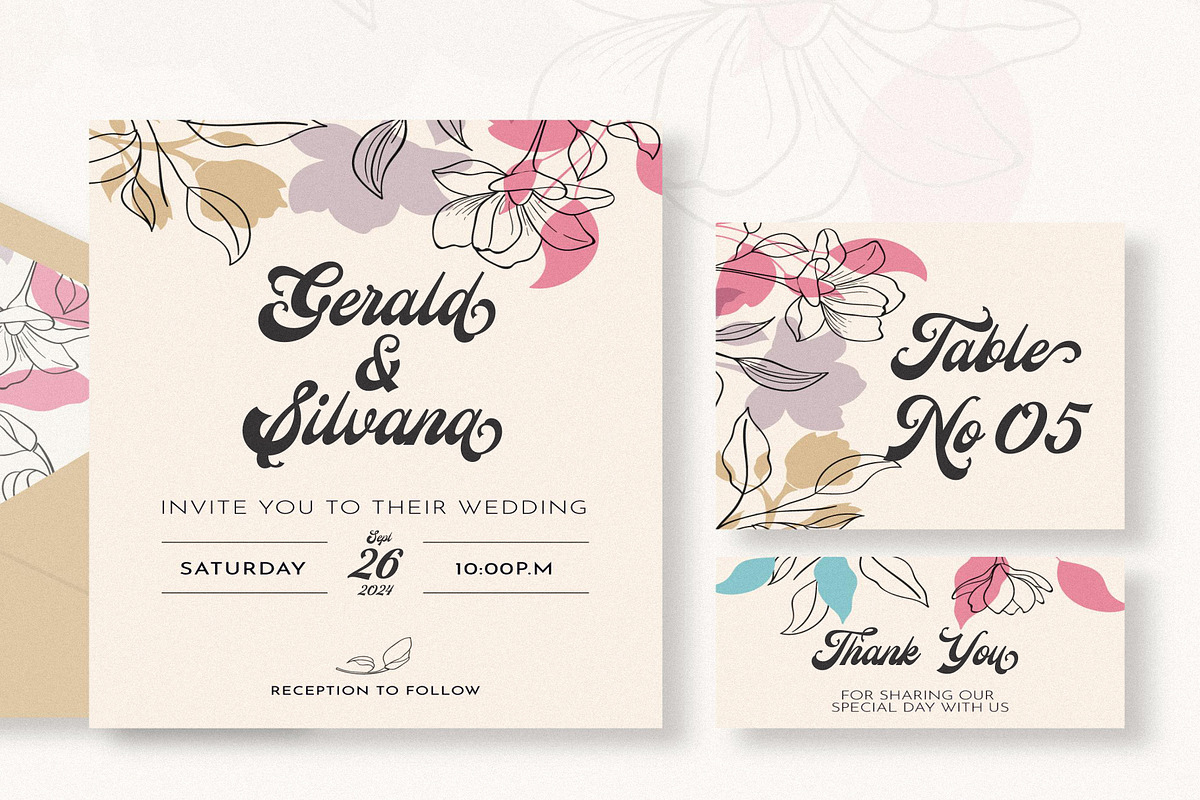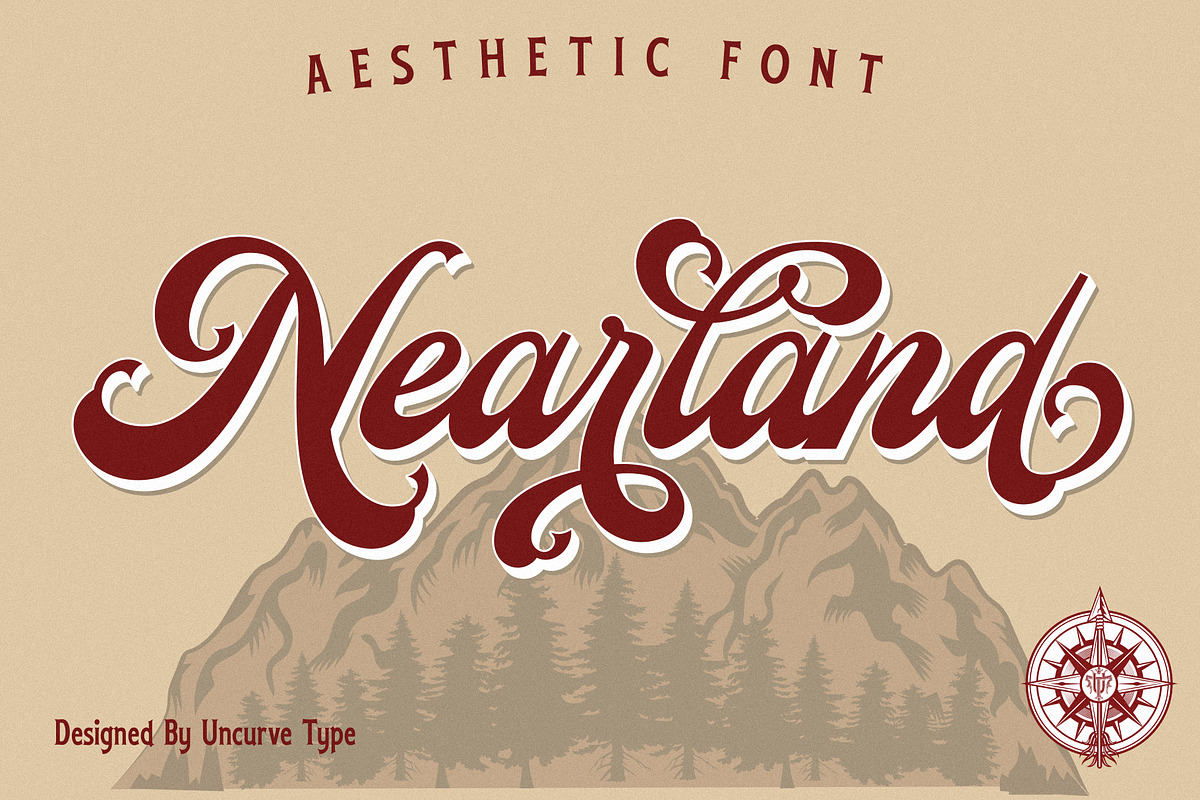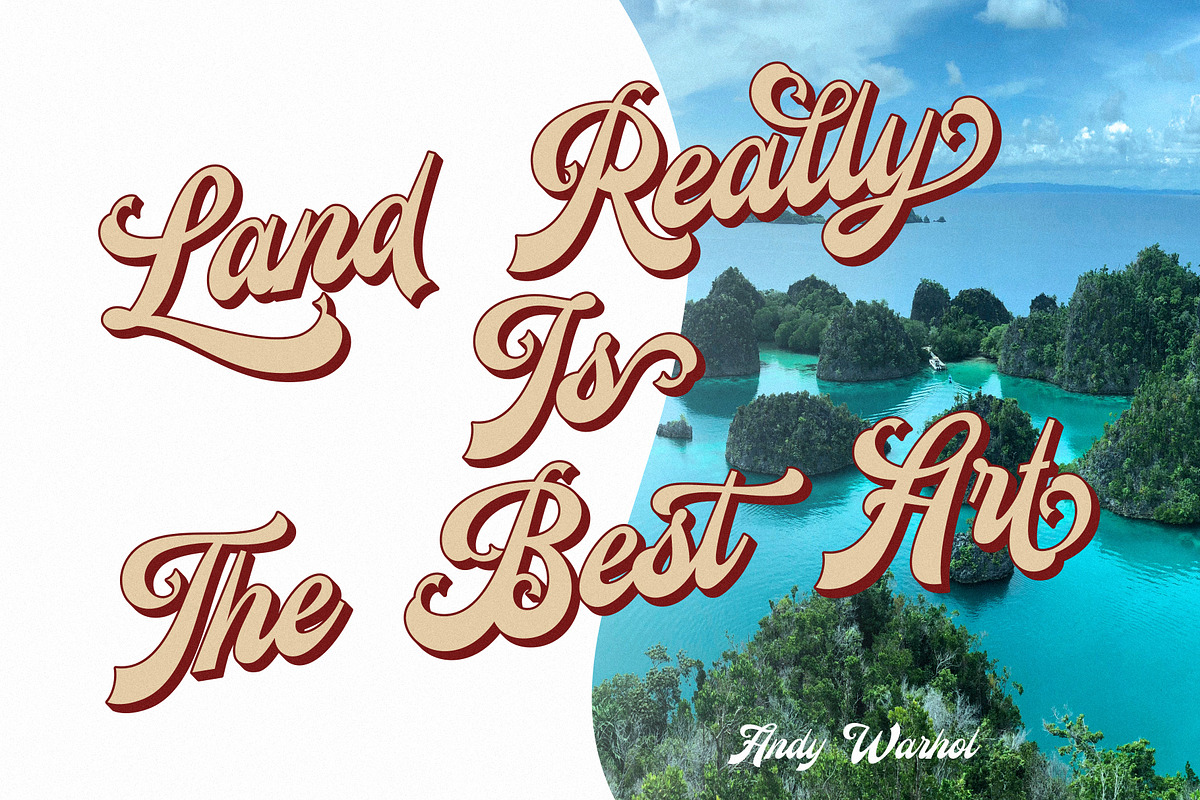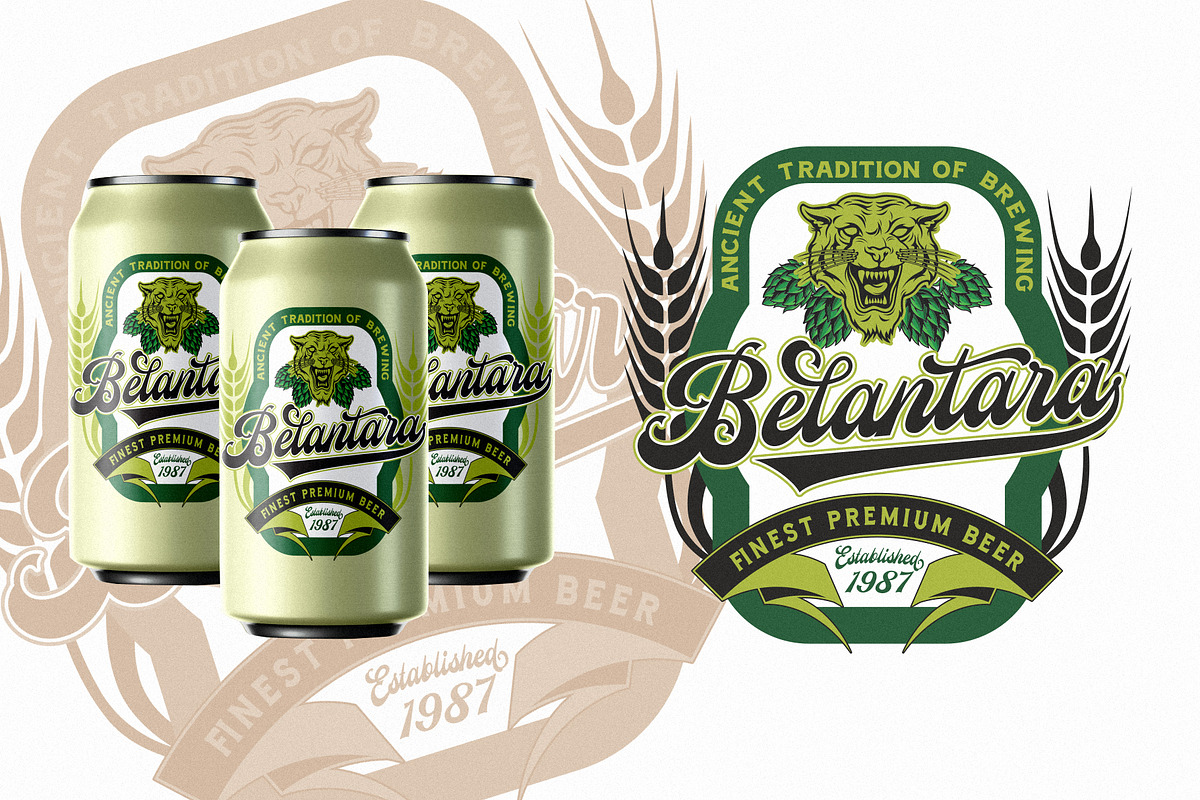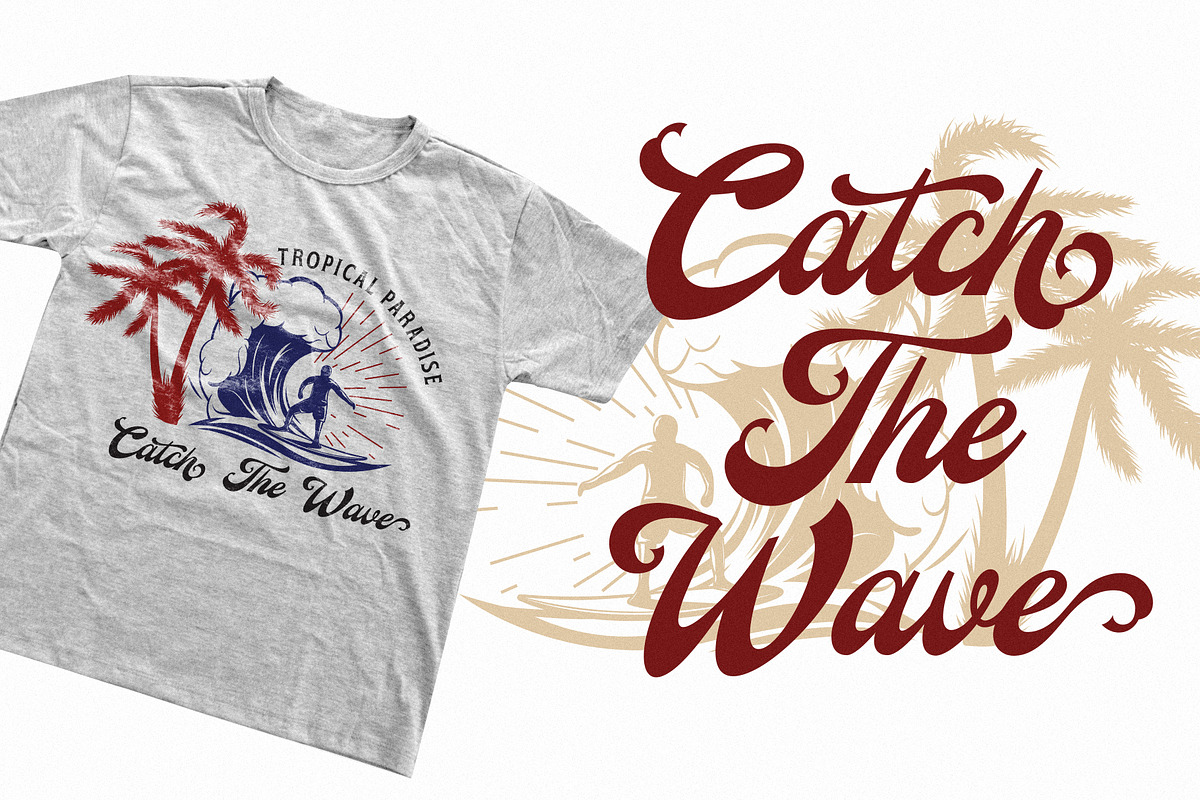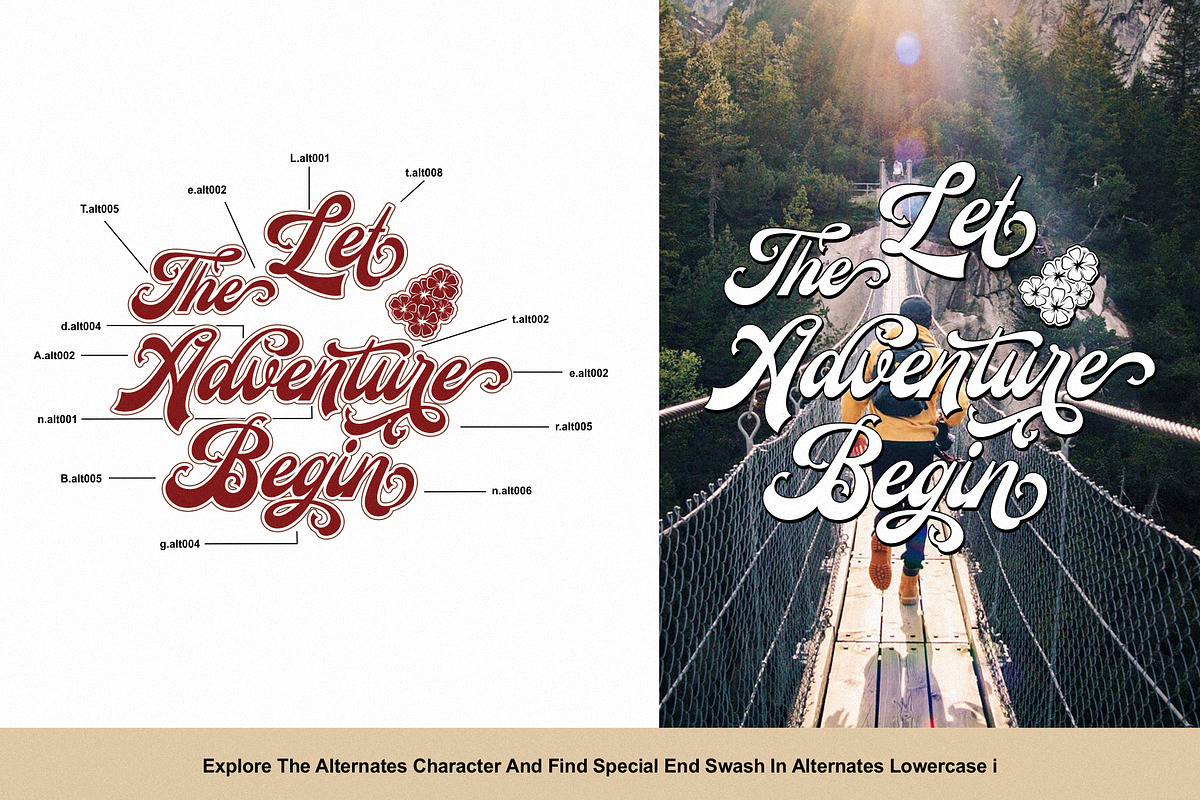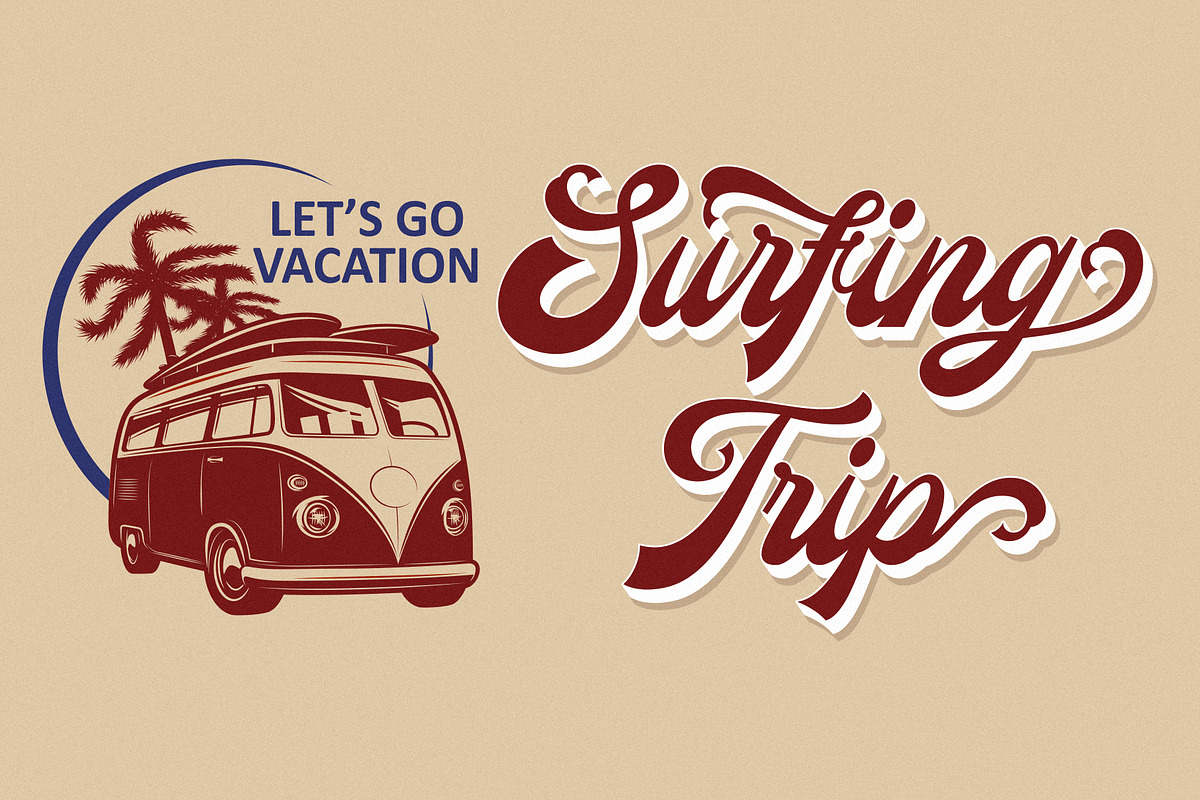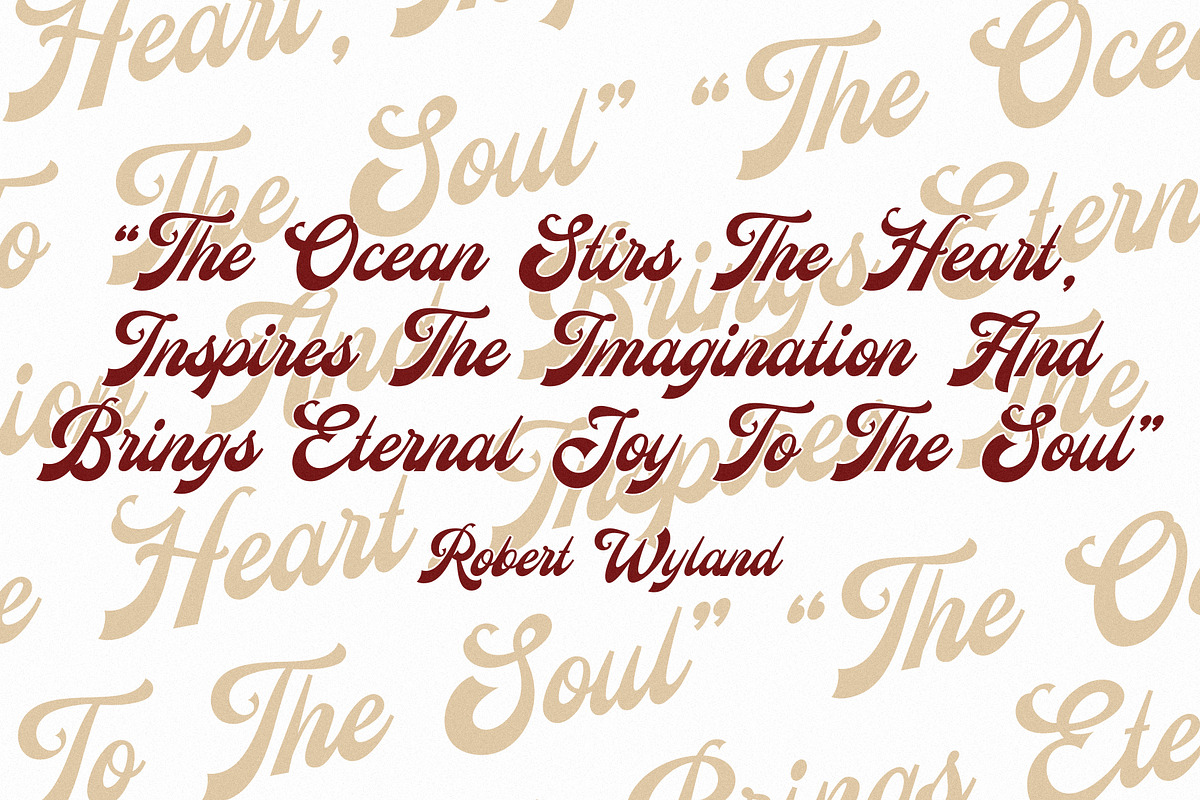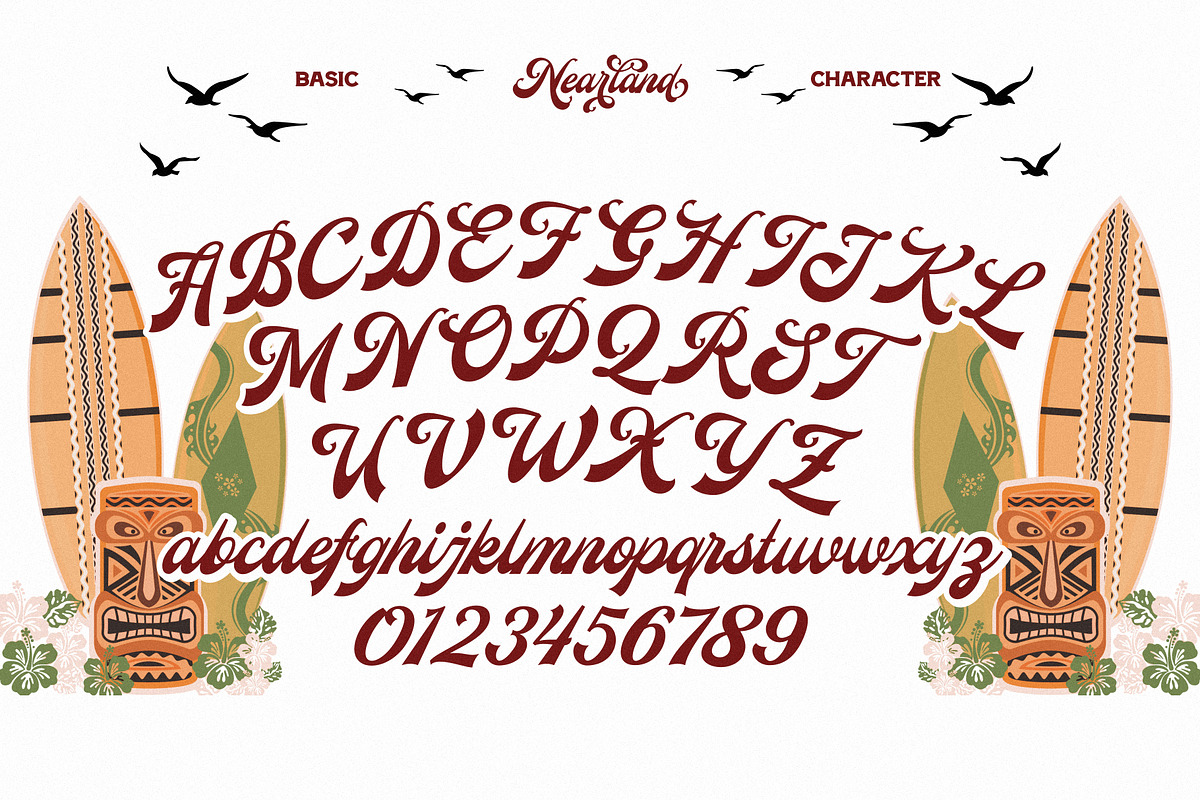
Nearland
Nearland is an aesthetic vintage Script font.
Inspired from the past, elegant signage, gold leaf art, sign painting, lettering, logo and old label product.
Nearland Script comes with tons of alternates characters and special alternate (i) lowercase is a ending swash thats to make more eye cacthy. Finally BOOM..!! you get a great design for your project.
Nearland It's suitable for authentic logos, headings, sign painting, posters, letterhead, branding, magazines, album covers, book covers, movies, apparel design, flyers, greeting cards, product packaging, badge and more.